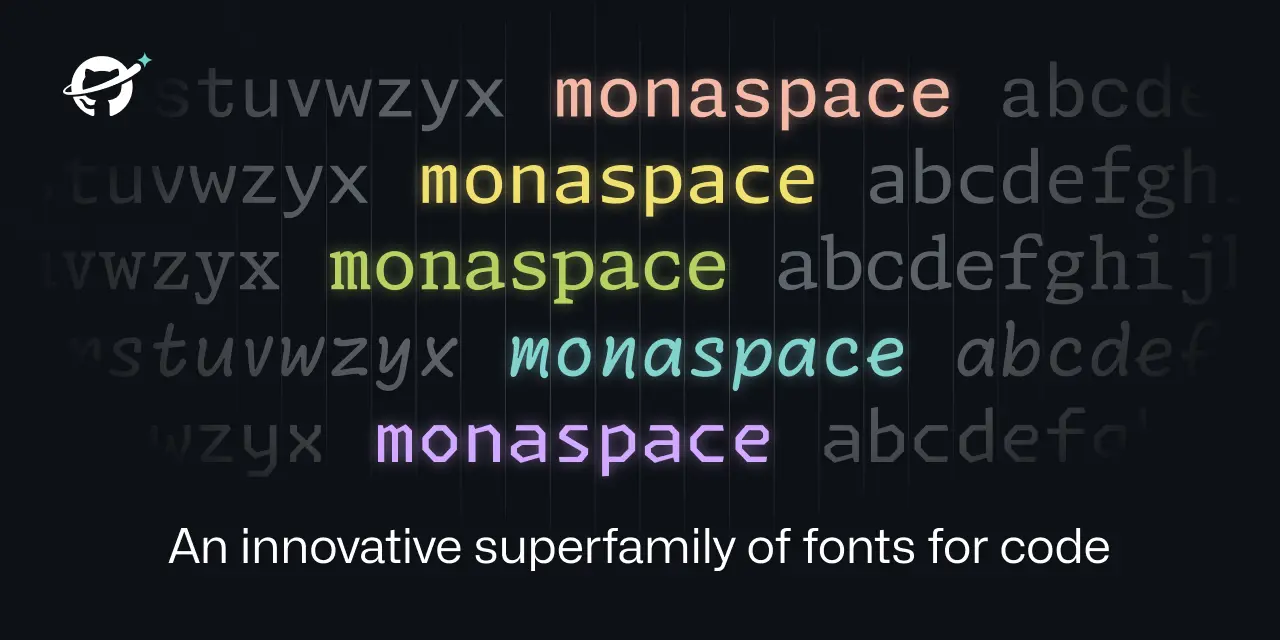
Monaspace
The Monaspace type system is a monospaced type superfamily with some modern tricks up its sleeve. It consists of five variable axis typefaces. Each one has a distinct voice, but they are all metrics-compatible with one another, allowing you to mix and match them for a more expressive typographical palette.
Letters on a grid is how we see our code. Why not make those letters better?
Overview